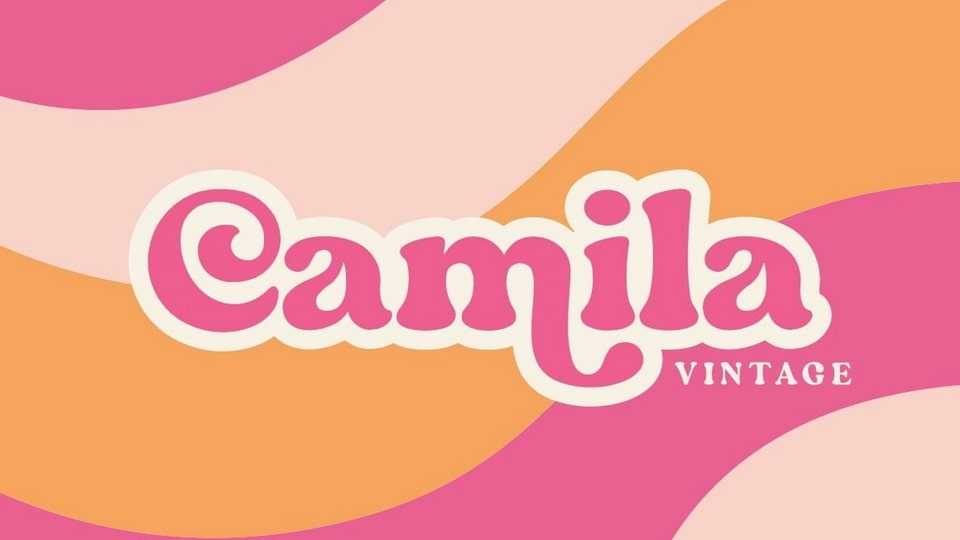
Download Camila Vintage font, a modern and elegant retro serif, designed to enhance any design you love. Camila Vintage font is perfectly made to be applied especially in logos, headlines, signage, and the other various designs.
Designer: Reyrey Blue